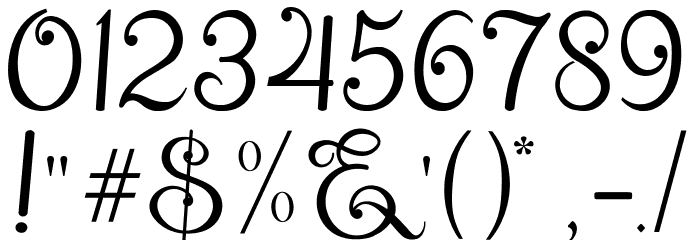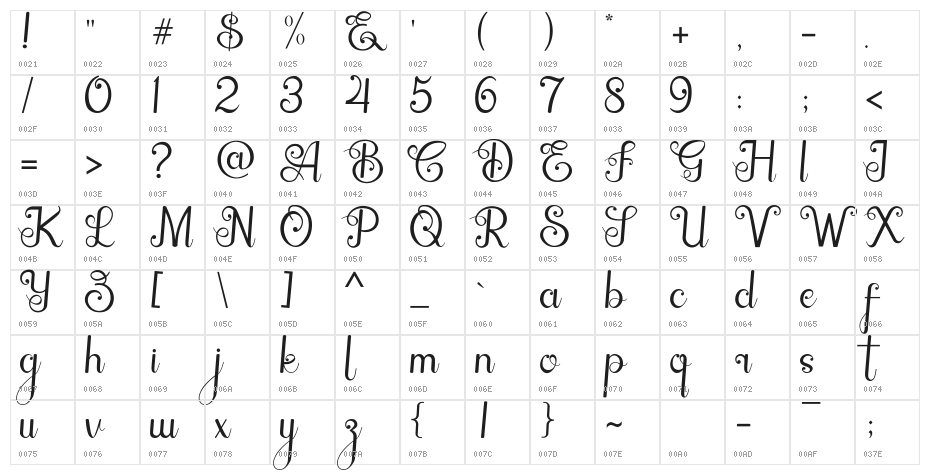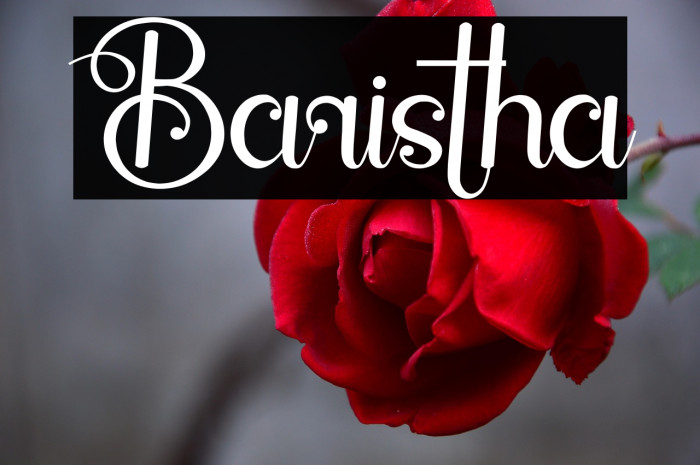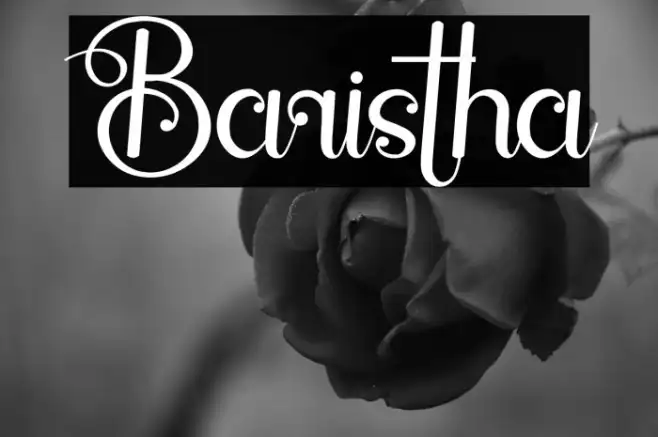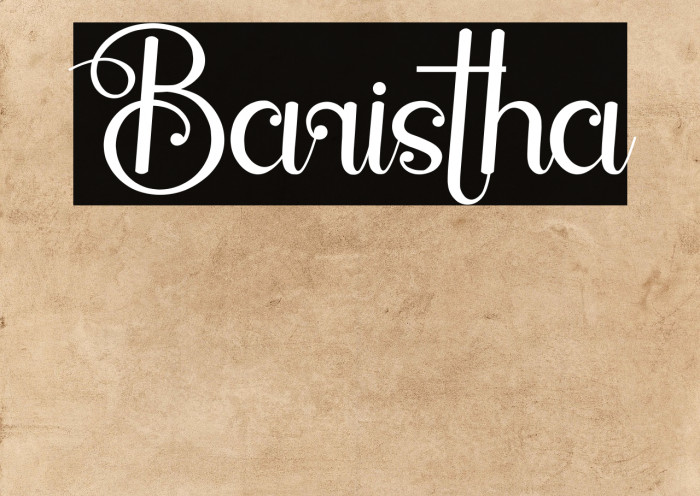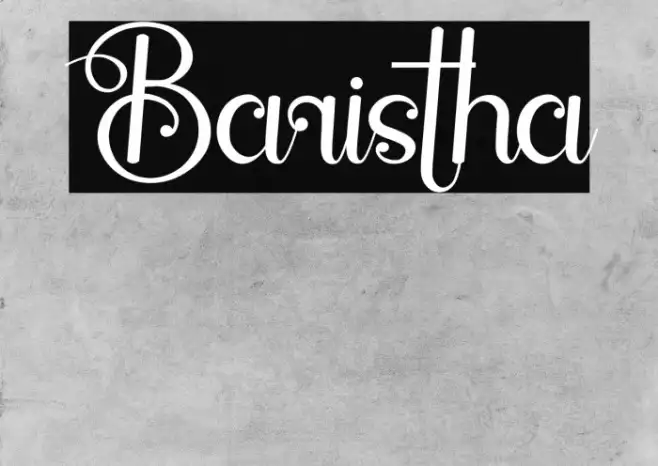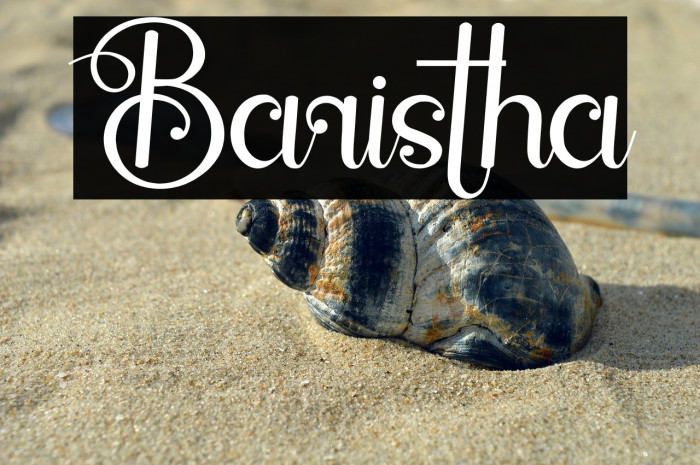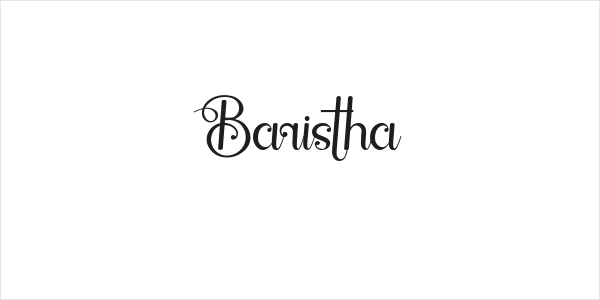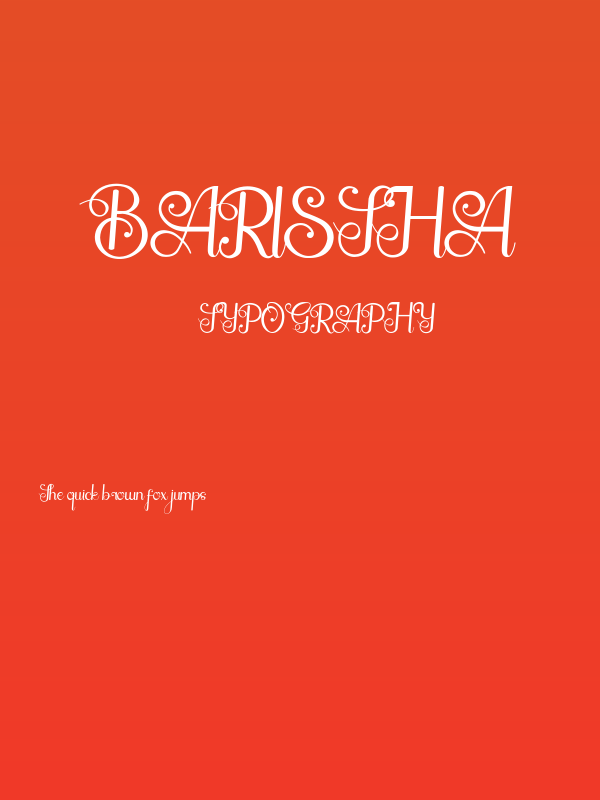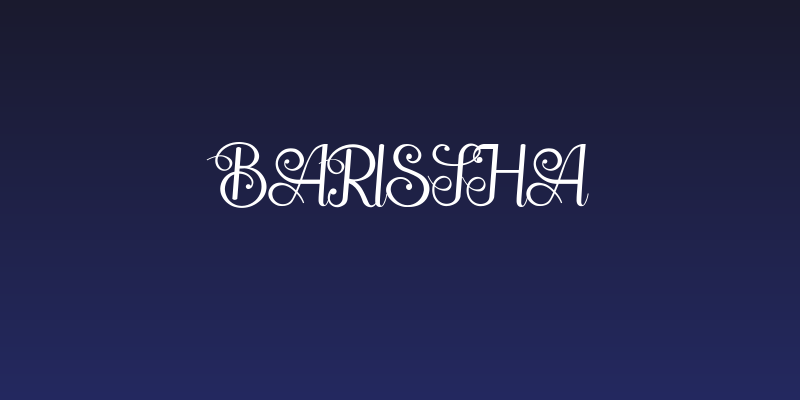
Baristha Font
Baristha Description
This font features an elegant and decorative script style with intricate swirls and loops that add a touch of sophistication and flair. The uppercase letters are particularly ornate, with each character incorporating unique flourishes that enhance its visual appeal. The lowercase letters maintain a consistent flow, with smooth curves and a slightly more restrained design compared to the uppercase. Numbers and special characters are also included, matching the overall aesthetic with their own decorative elements. The font's design is both artistic and readable, making it suitable for a variety of creative applications.
| Proposed Projects | Ideal for wedding invitations, greeting cards, branding projects, and elegant packaging designs. |